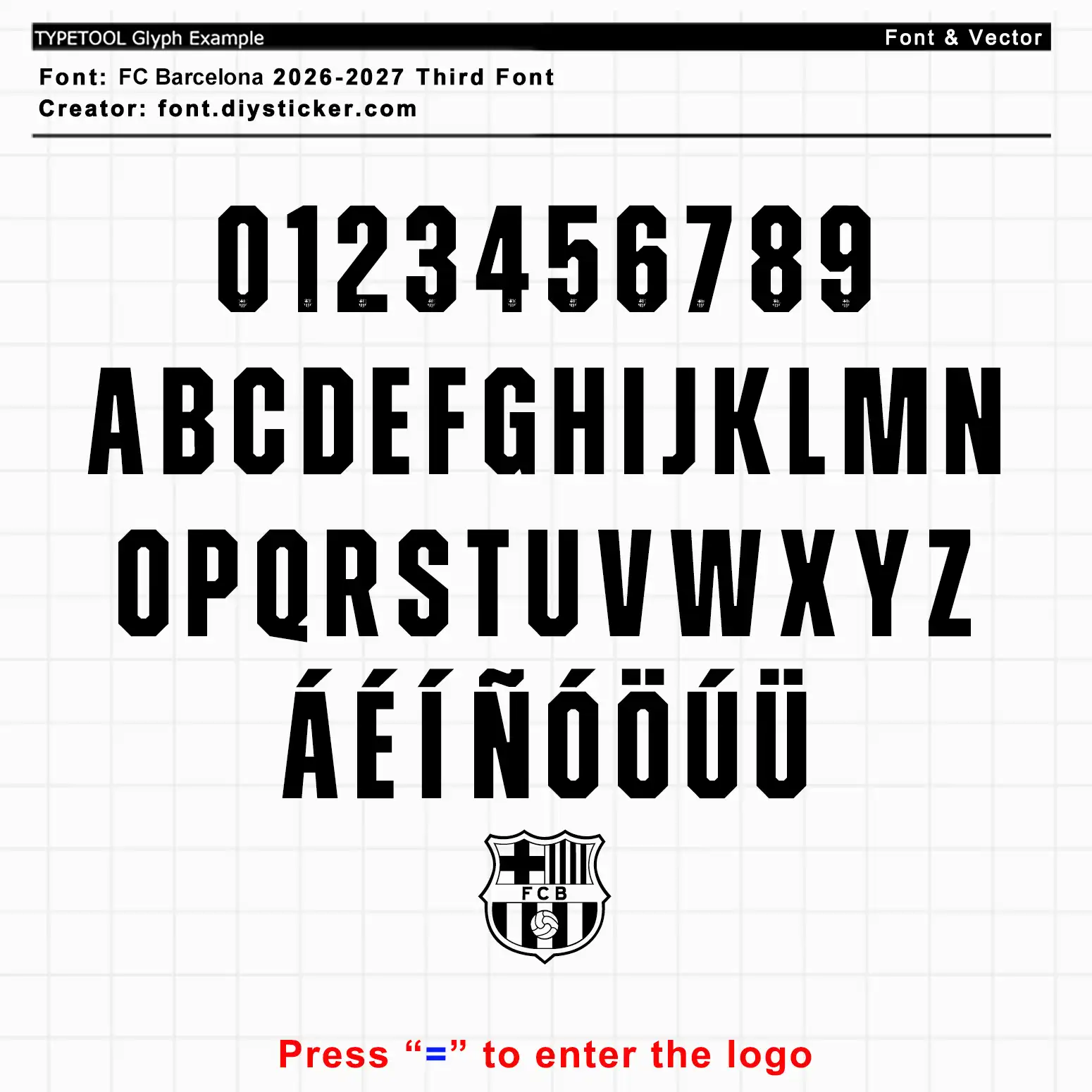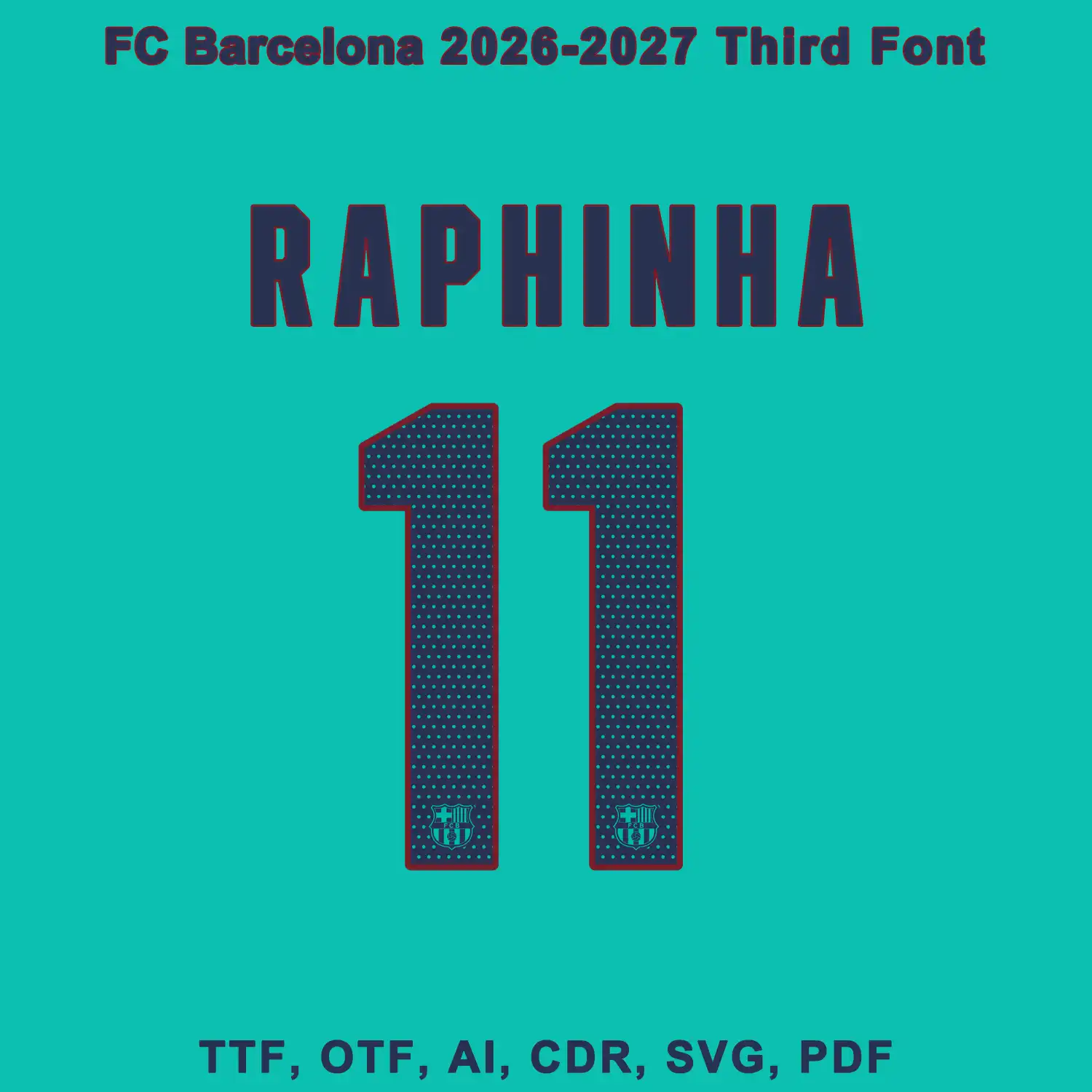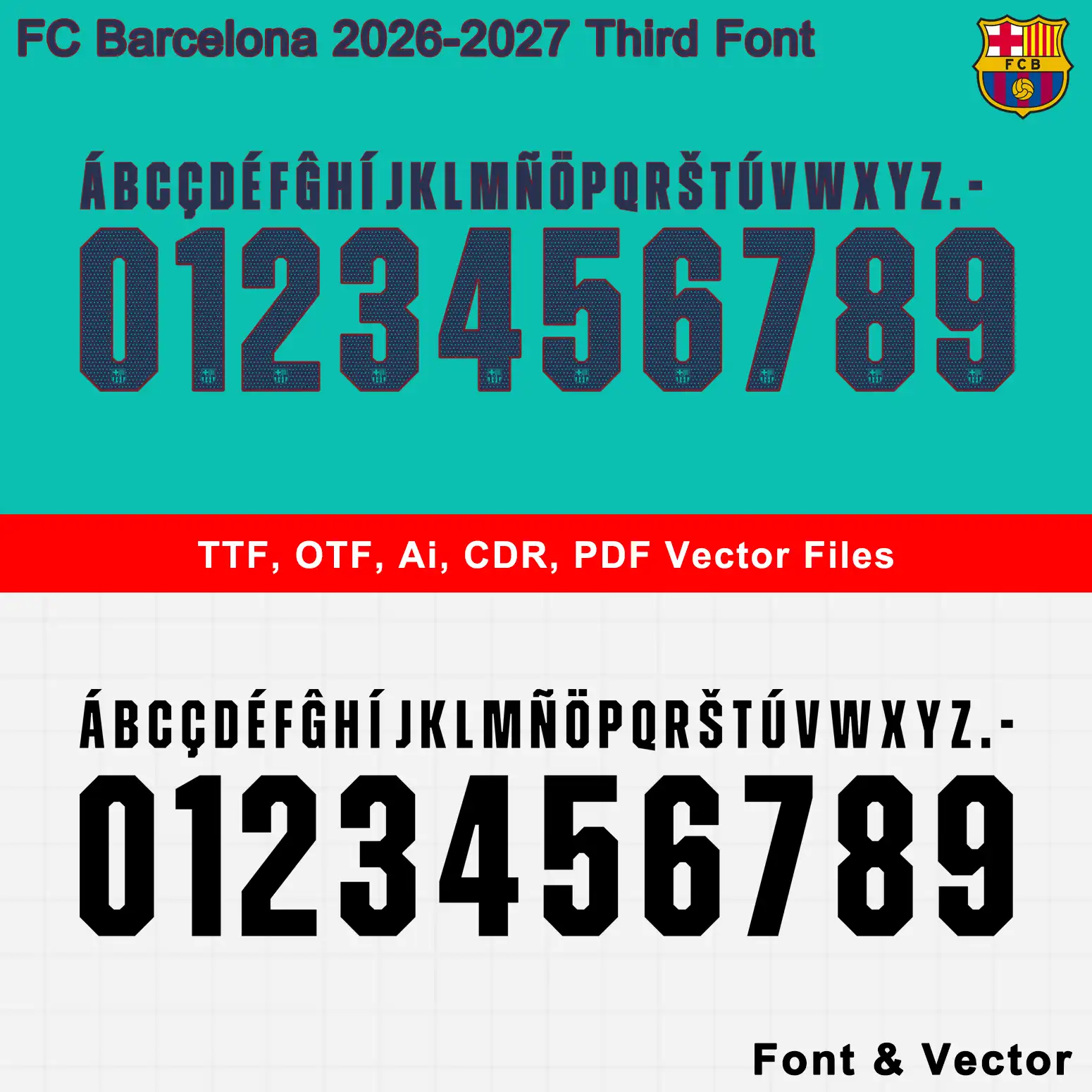
FC Barcelona 2026‑2027 Third Font – Complete Vector & Font Package
Grab the accurate digital kit resource for the new season: FC Barcelona 2026‑2027 Third Font. This product contains installable desktop font files and fully editable vector artwork to replicate the official third‑kit name‑and‑number style for FC Barcelona. Whether you run custom jersey printing, create fan merchandise, design stickers or produce graphic artwork for Barca supporters, this all‑in‑one bundle covers your workflow.
Key Features of FC Barcelona 2026‑2027 Third Kit Lettering
This FC Barcelona 2026‑2027 Third Font includes full uppercase alphabet, accented special glyphs (Á, É, Í, Ñ, Ö, Ü etc.) and complete numerals 0‑9. It also contains embedded club logo glyph accessible via keyboard shortcut. The letter shape, stroke width and corner styling exactly replicate the third jersey typography used for player names such as Raphinha.
Q: Are accented characters included in FC Barcelona 2026‑2027 Third Font?
A: Full set of accented Latin glyphs are included, to reproduce Spanish‑language player names correctly.